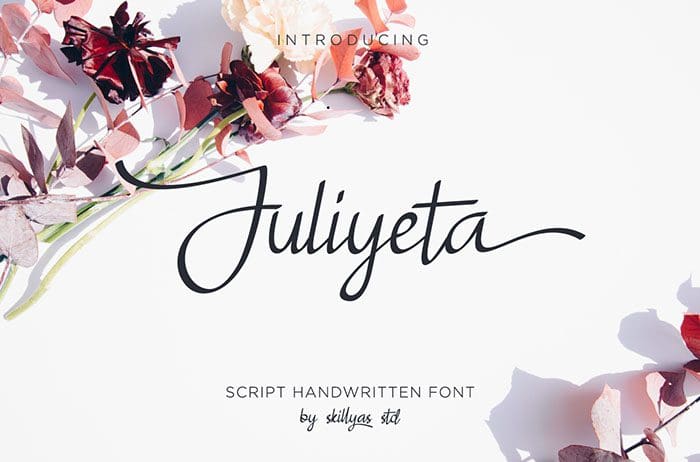
Juliyeta Handwritten Font
Juliyeta is an incredibly delicate and timeless Handwritten Font. This font is perfect for branding projects, logos, wedding designs, and more. Thanks to skillyas std for sharing this font! Take a look at this portfolio for more of his stunning fonts.